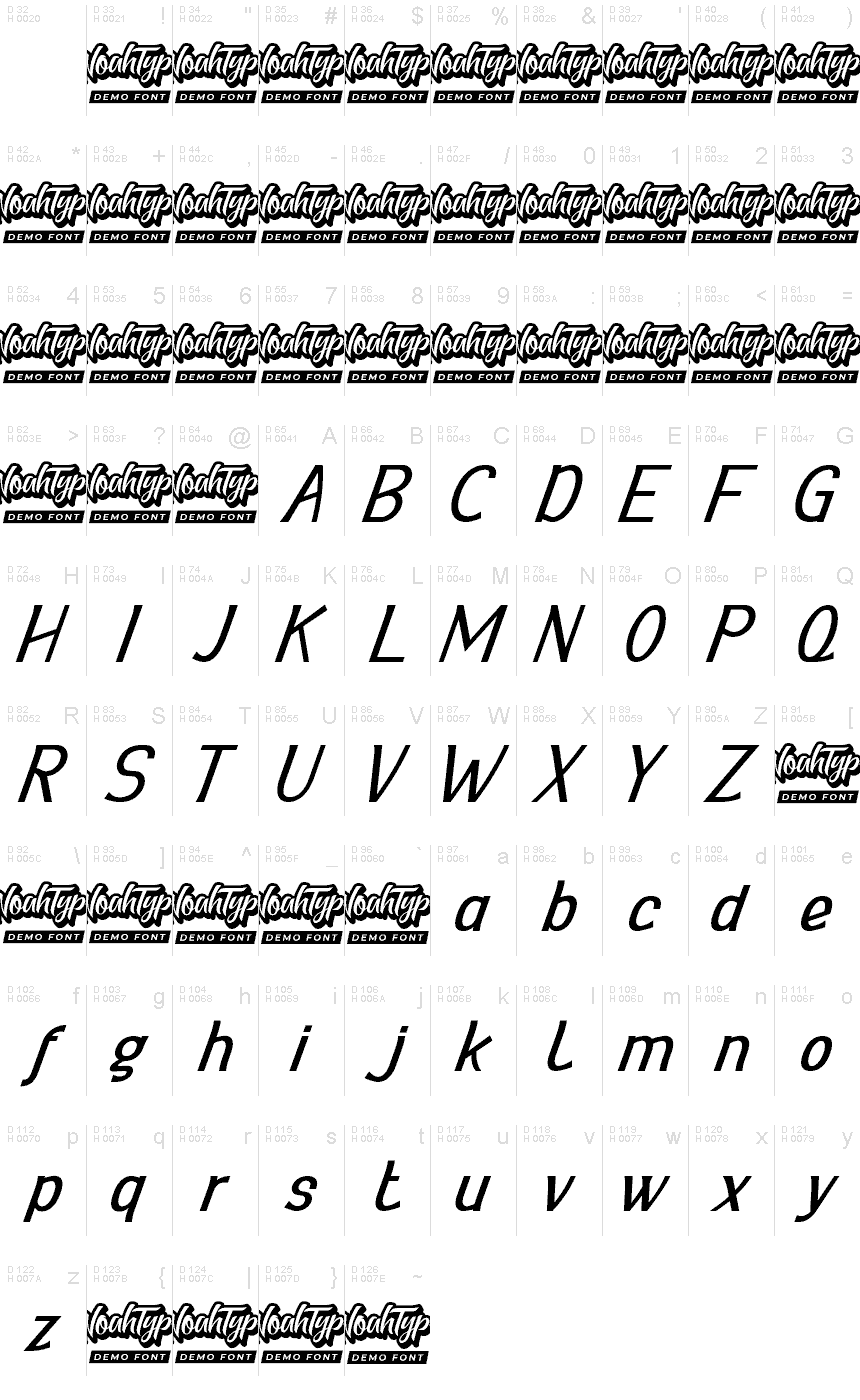
Your Everyday Demo Bold Italic
Your Everyday Bold Italic font is a free sans serif font combining elegance and approachability, all thanks to a harmonious blend of styles that favor both modern and timeless designs. The characters have understated stylistic details that perfectly balance professionalism with relatability, making them appropriate for formal documents as well as informal signage.